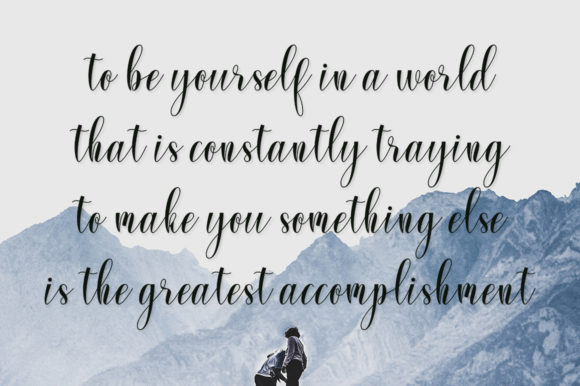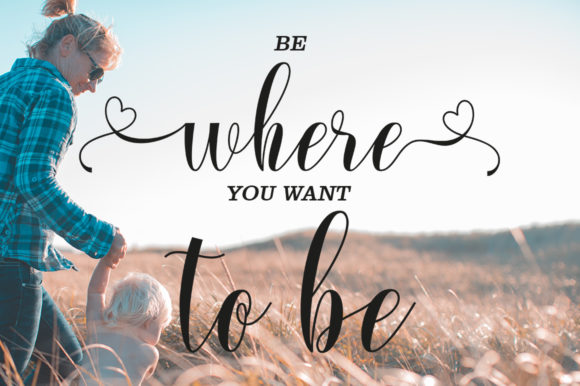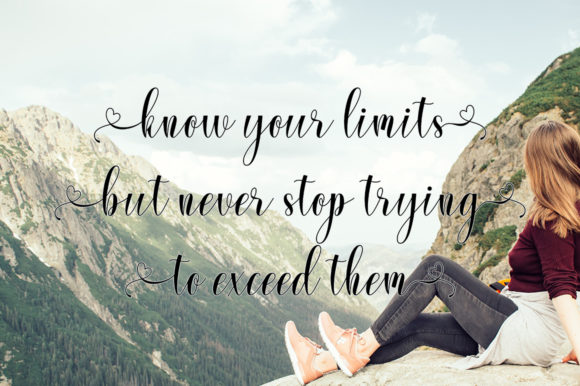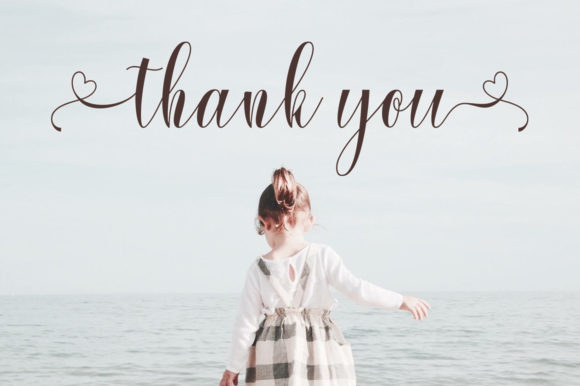
Holigentha Font
Certainly! “Holigentha” is a font that exudes an enchanting blend of charm and elegance, creating a visual symphony that resonates with sophistication. Its handwritten style boasts an innate grace that makes it an impeccable choice for an array of design projects, whether it’s the allure of wedding invitations, the warmth of thank you cards, the inspiration of quotes, the heartfelt sentiments of greeting cards, the recognition of logos, or the professional touch of business cards. In every application, “Holigentha” imparts a touch of refinement that elevates the design to a new level of aesthetic excellence.
The font’s captivating allure is evident in its meticulous craftsmanship. Each character has been thoughtfully designed, striking the perfect balance between its charming appearance and its elegant undertones. The varying baseline introduces a dynamic element, adding a sense of fluidity and motion to the script. The smooth lines, along with the intricate and alluring glyphs, contribute to the overall aesthetic beauty, inviting the viewer to engage with the design on a deeper level.
Upon incorporation into your designs, “Holigentha” imparts an immediate sense of authenticity and sophistication. It bestows a sense of understated luxury, transforming ordinary design elements into exquisite pieces of art. Whether it graces a wedding invitation that sets the tone for a memorable celebration, adds a touch of refinement to a logo that speaks volumes about a brand’s identity, or brings elegance to a heartfelt quote, the font’s presence is felt in every stroke, infusing the design with an air of timeless beauty.
Embrace “Holigentha” as a cherished asset in your design toolkit, allowing it to work its magic and enhance your creations with its captivating charm and elegance. Regardless of your experience in the realm of design, this font empowers you to create visuals that speak volumes about your artistic sensibilities. Dive into the world of PUA encoded glyphs and swashes, and unlock endless creative possibilities as you bring your vision to life with this exquisite font. Let yourself be captivated by the irresistible charm of “Holigentha,” and watch as it transforms your designs into masterpieces that evoke admiration, intrigue, and lasting impact.